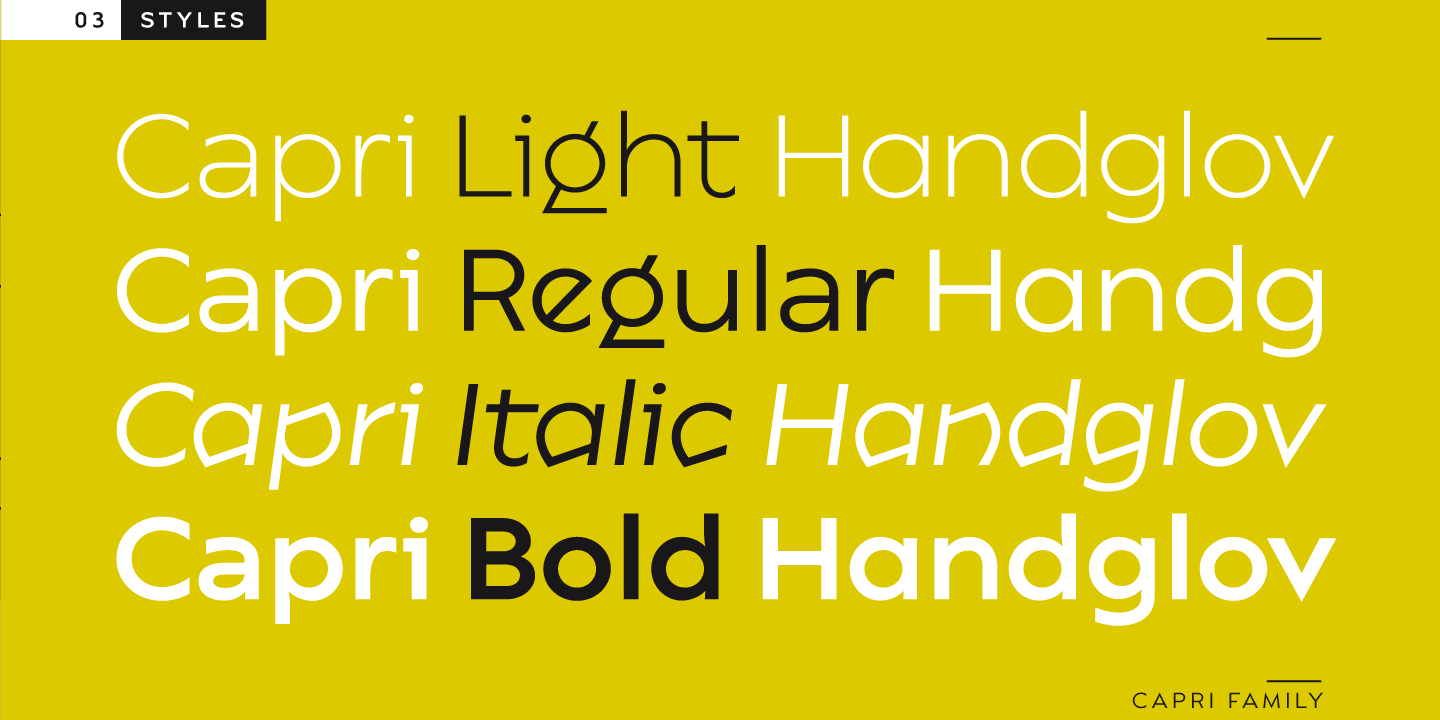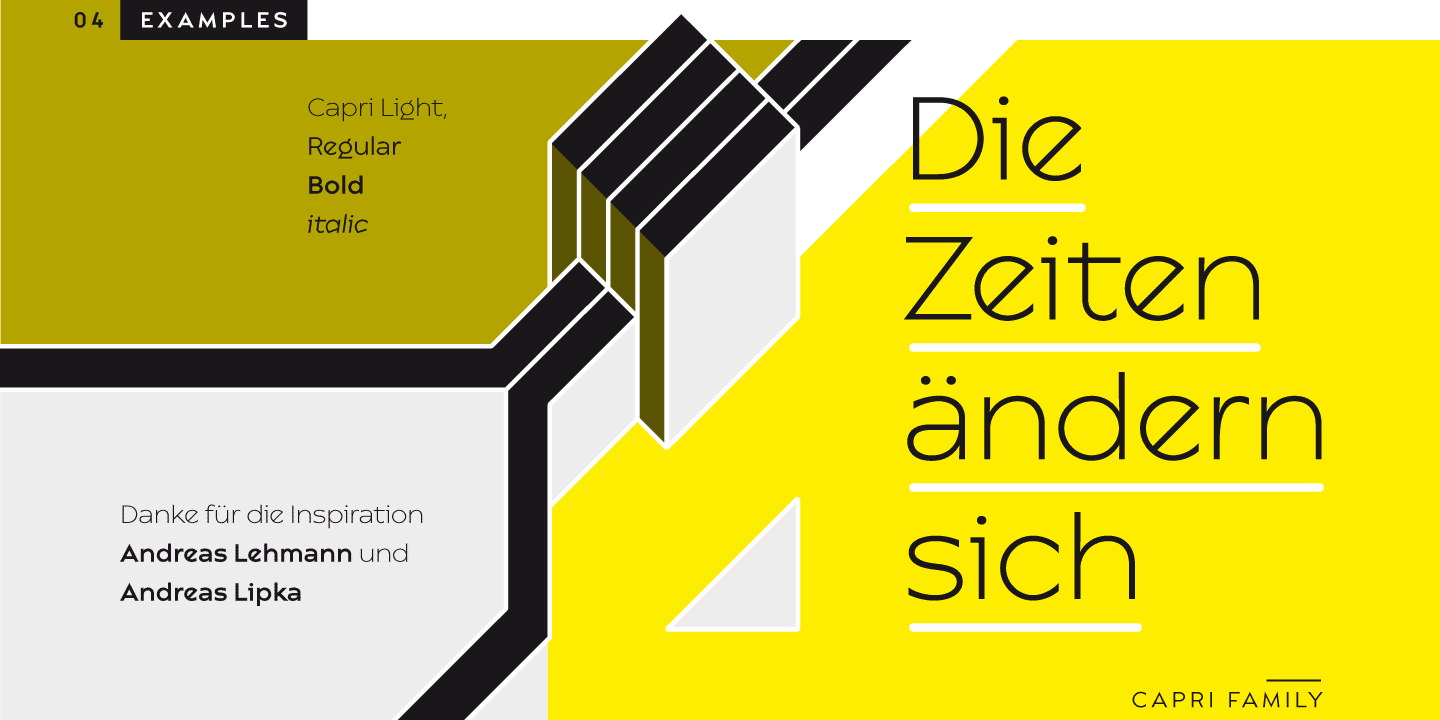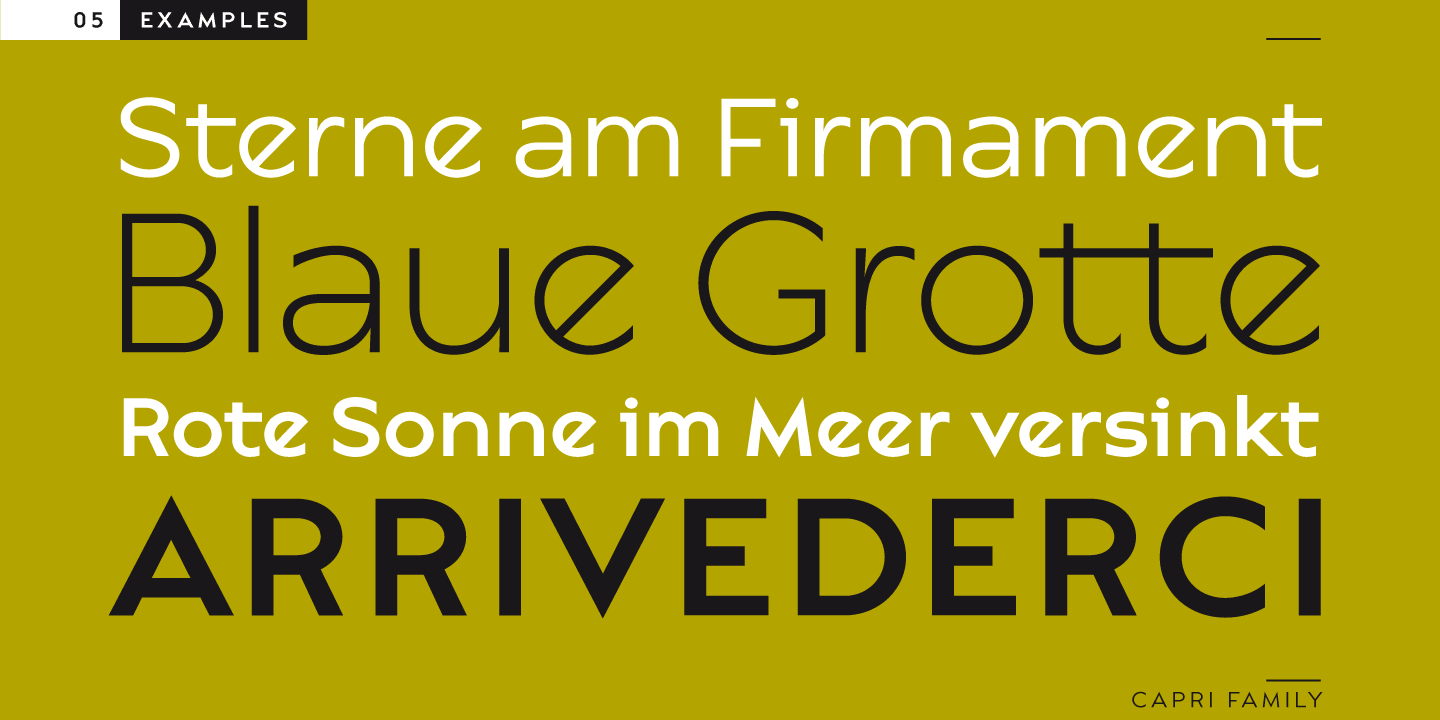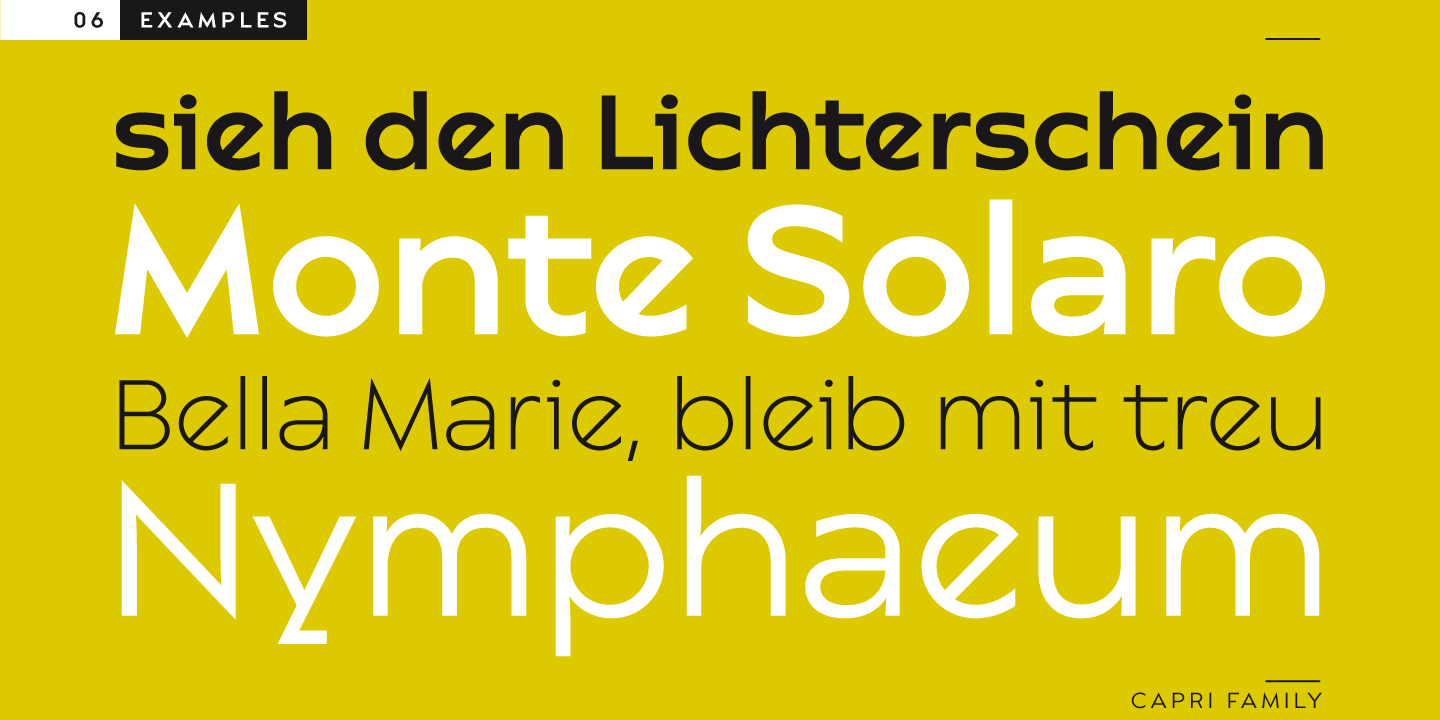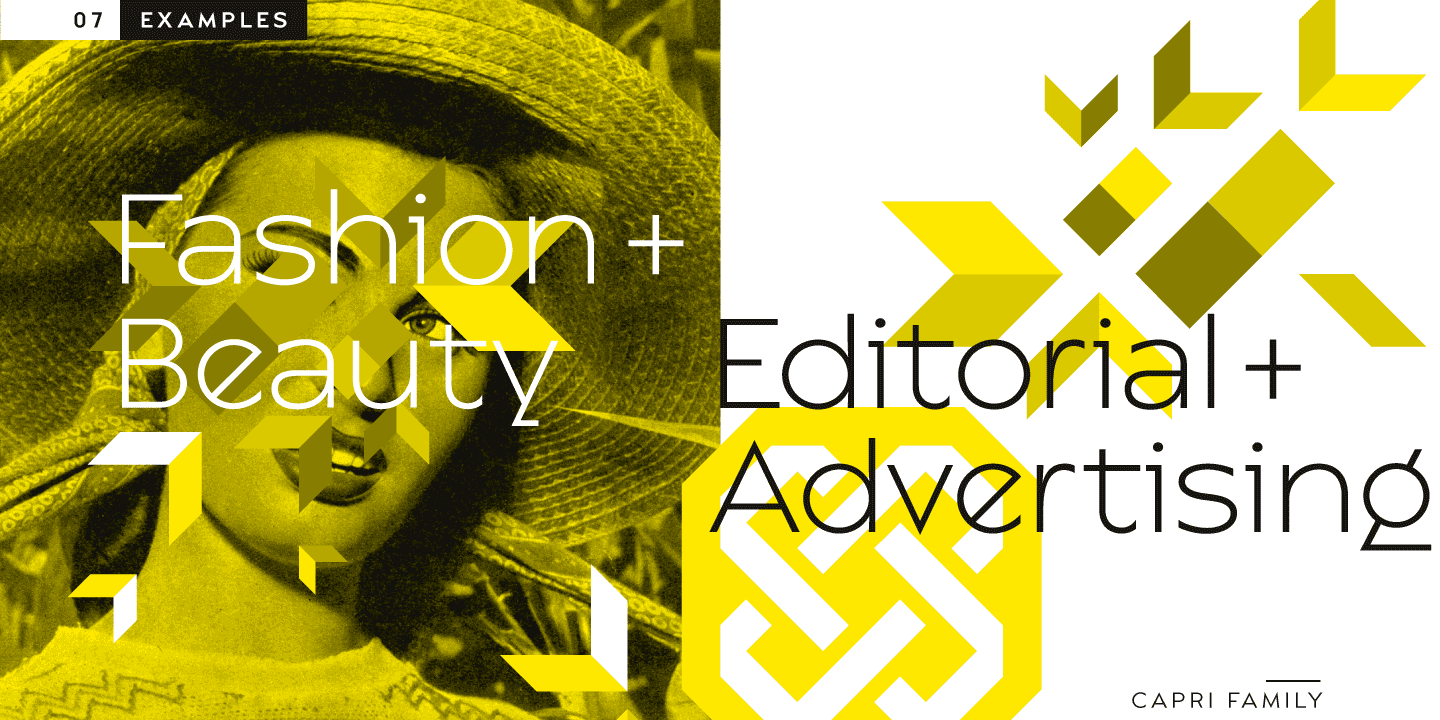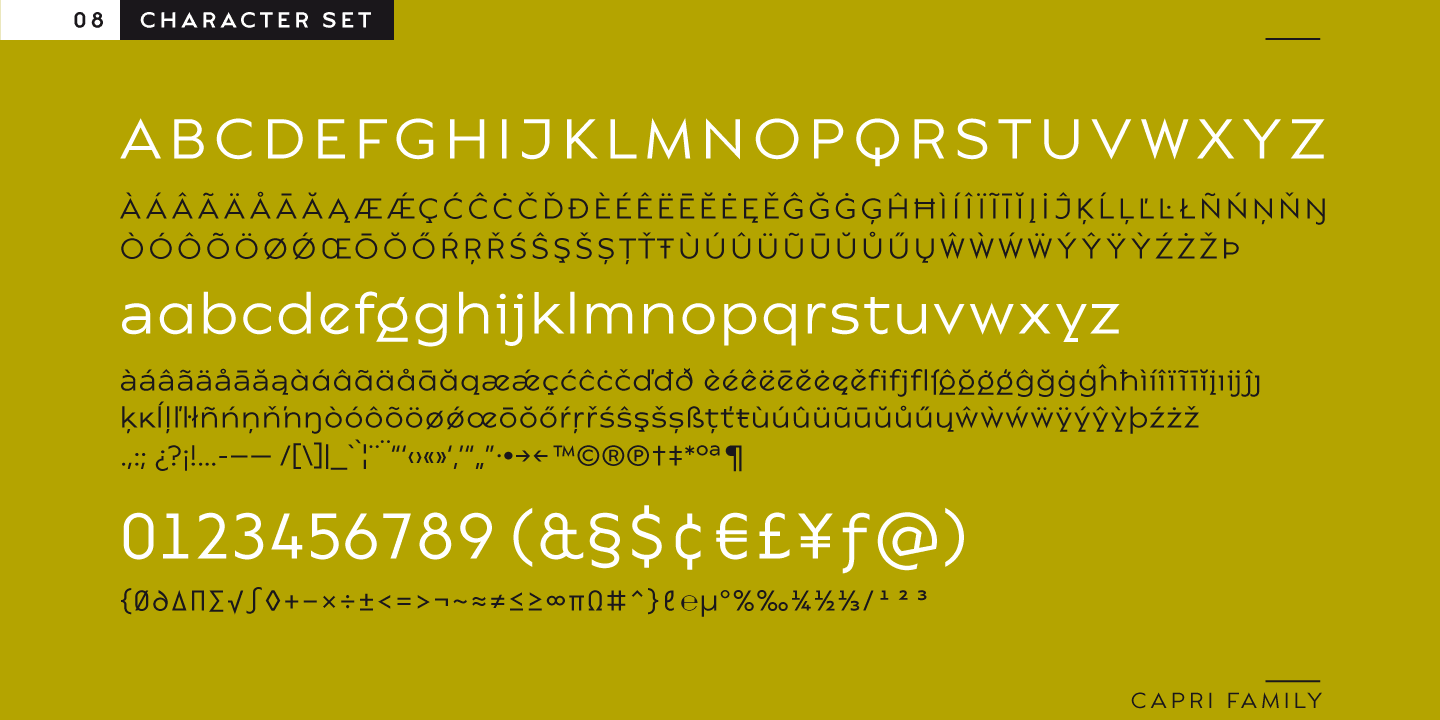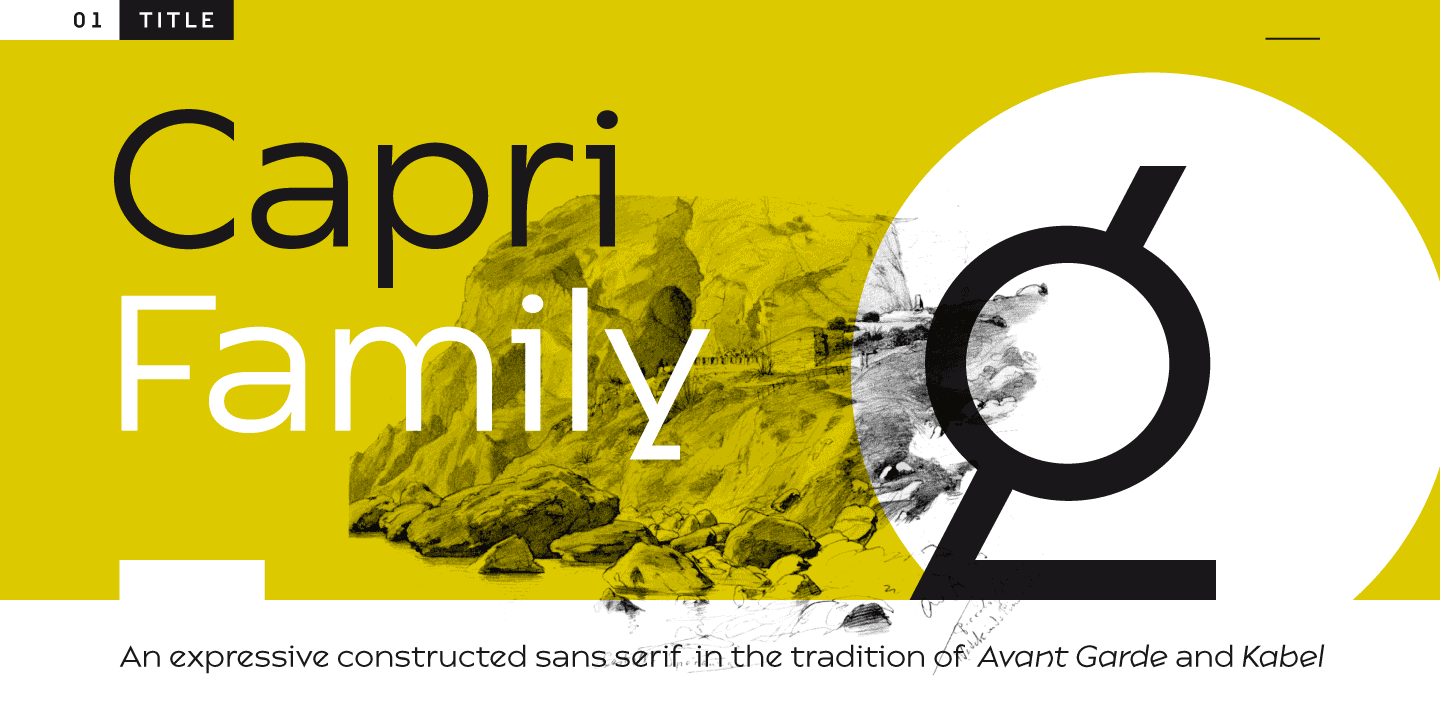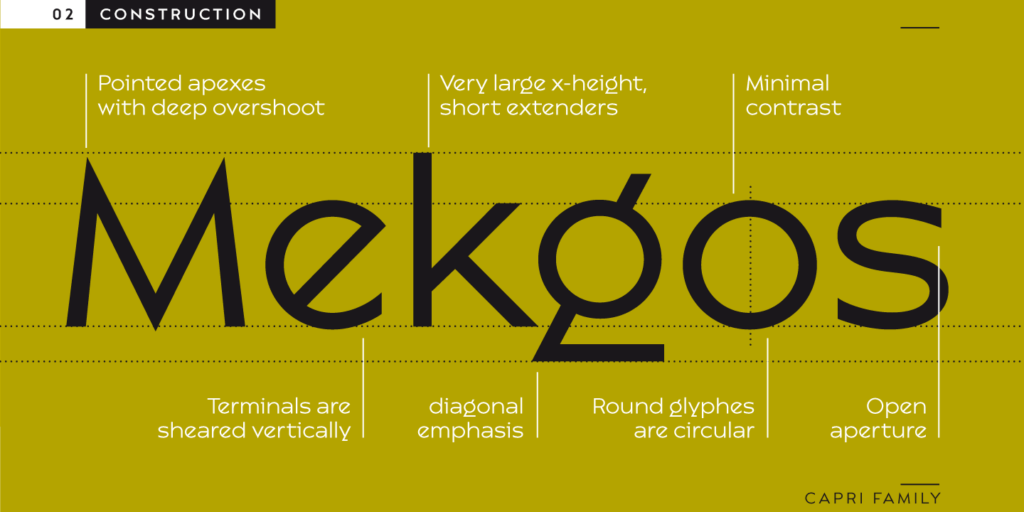
Capri Pro
About Capri Pro
Capri is an expressive Geometric Sans in the tradition of Kabel and Avant Garde. Although the look and feel is contemporary, the typeface retains the butalistic charm of the Constructivist concept. The distinctive diagonal – as visible in the lower…